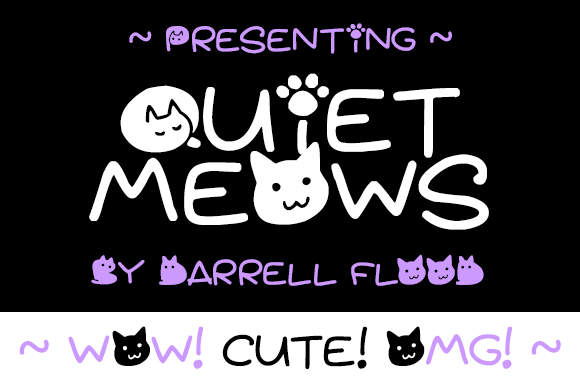
Step into a world of sheer delight and unbridled imagination, where letters dance with a feline flair, and words transform into a symphony of purrs and meows! Quiet Meows Font, a creation of the ingenious Dadiomouse, beckons you to embark on a typographic adventure like no other.
Unleash your inner cat lover and let Quiet Meows Font cast its spell on your designs. With its playful and endearing design, this font family will transform your projects into a menagerie of charm and personality. Let your imagination run wild as you craft logos that sizzle with feline energy, website designs that purr with elegance, and social media posts that dance with a mischievous charm.
Quiet Meows Font is not just a font; it's a gateway to a world where creativity knows no bounds. Its decorative nature invites you to explore the whimsical and embrace the extraordinary. Create eye-catching posters that burst with color and wit, greeting cards that warm the heart with their playful touch, and invitations that promise a touch of feline magic.
With Quiet Meows Font, every design becomes a canvas for storytelling. Its unique character set, featuring cats gracefully forming some of the letters, adds a touch of enchantment to your projects. Let your words dance with a feline grace, captivating your audience and leaving them spellbound by your typographic prowess.
So, dear design enthusiasts, embrace the allure of Quiet Meows Font. Let your creativity soar, let your imagination run wild, and experience the joy of crafting designs that purr with perfection. Download Quiet Meows Font today and embark on a typographic adventure that will leave you feline-tastically satisfied!